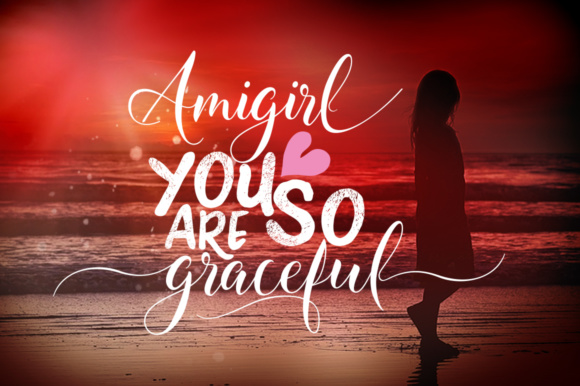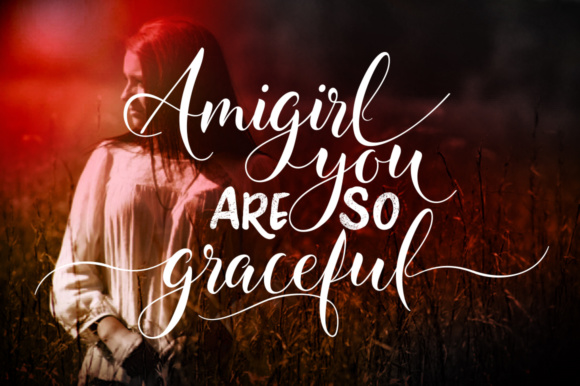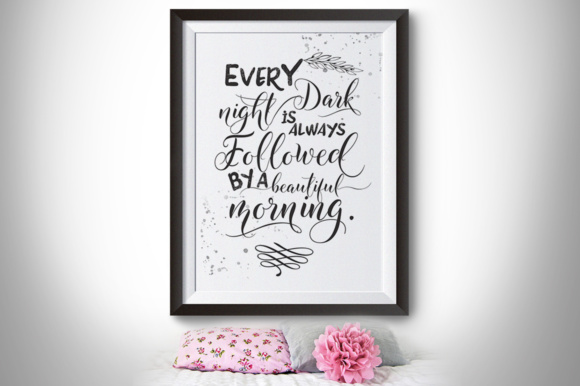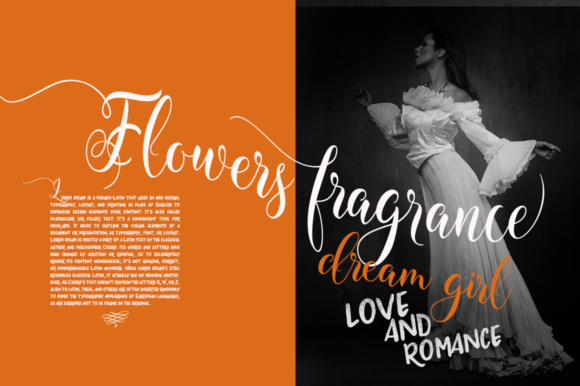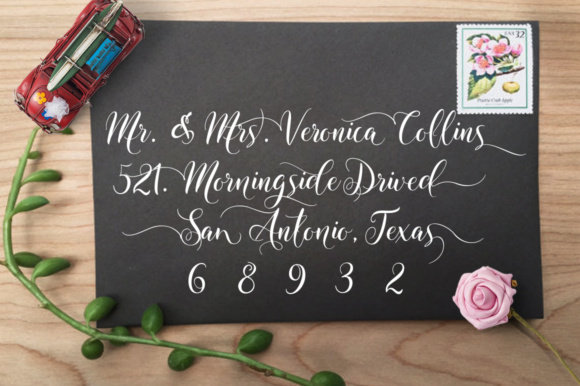
Introducing Amigirl Font: Elevate Your Designs with Elegance and Style
Are you a designer or crafter looking to add a touch of sophistication and charm to your creations? Look no further than the Amigirl Font, a stunning swashy script that is sure to take your designs to the next level. In this article, we’ll dive into the world of Amigirl Font, exploring its features, benefits, and uses, as well as provide tips and inspiration for incorporating it into your work.
What is Amigirl Font?
Amigirl Font is a beautiful, swashy script designed to add a wholly stylish and lovely appeal to your designs. This gorgeous font was created specifically for use in displays, making it perfect for headlines, titles, and other prominent design elements. With its elegant and flowing curves, Amigirl Font is sure to make a statement and leave a lasting impression.
Key Features of Amigirl Font
- Swashy Script: Amigirl Font features a beautiful, swashy script that adds a touch of elegance and sophistication to your designs.
- Display Font: Designed specifically for use in displays, Amigirl Font is perfect for headlines, titles, and other prominent design elements.
- Highly Versatile: Amigirl Font can be used in a variety of design applications, from digital projects to print materials.
- Easy to Use: With its clean and simple design, Amigirl Font is easy to read and works well in a variety of design contexts.
Benefits of Using Amigirl Font
So why choose Amigirl Font for your designs? Here are just a few benefits of using this gorgeous font:
- Adds Elegance and Sophistication: Amigirl Font adds a touch of elegance and sophistication to your designs, making it perfect for high-end brands and luxury products.
- Grabs Attention: With its bold and eye-catching design, Amigirl Font is sure to grab attention and make a lasting impression.
- Increases Readability: Despite its ornate design, Amigirl Font is easy to read and works well in a variety of design contexts.
- Versatile: Amigirl Font can be used in a variety of design applications, from digital projects to print materials.
Using Amigirl Font in Your Designs
So how can you use Amigirl Font in your designs? Here are a few ideas to get you started:
- Headlines and Titles: Use Amigirl Font to create bold and eye-catching headlines and titles that grab attention and make a lasting impression.
- Logos and Branding: Amigirl Font is perfect for use in logos and branding materials, adding a touch of elegance and sophistication to your brand identity.
- Invitations and Stationery: Use Amigirl Font to create beautiful and elegant invitations and stationery that are sure to impress.
- Digital Projects: Amigirl Font works well in digital projects, from social media graphics to website headers and more.
Tips and Tricks for Working with Amigirl Font
Here are a few tips and tricks to keep in mind when working with Amigirl Font:
- Use it Sparingly: Amigirl Font is a bold and eye-catching font, so use it sparingly to avoid overwhelming your design.
- Pair it with Simple Fonts: Pair Amigirl Font with simple fonts to create a striking contrast and add visual interest to your design.
- Experiment with Colors: Amigirl Font works well in a variety of colors, so experiment with different hues and shades to find the perfect look for your design.
In conclusion, Amigirl Font is a beautiful and elegant swashy script that is sure to elevate your designs and add a touch of sophistication and charm. With its bold and eye-catching design, Amigirl Font is perfect for use in displays, headlines, titles, and other prominent design elements. Whether you’re a designer or crafter, Amigirl Font is a versatile and easy-to-use font that is sure to become a staple in your design toolkit.